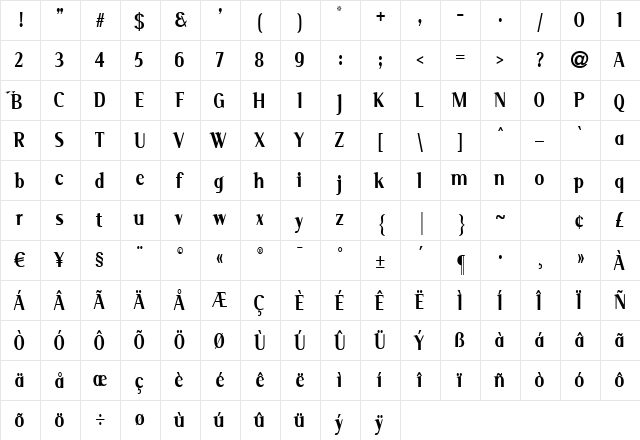
Serif Narrow
Design Context for Serif Typeface
Serif carries the refined structure of traditional serif typography, with bracketed terminals and considered proportions that communicate credibility and craft. Its narrow stance lets it pack a punch even in space-constrained designs.